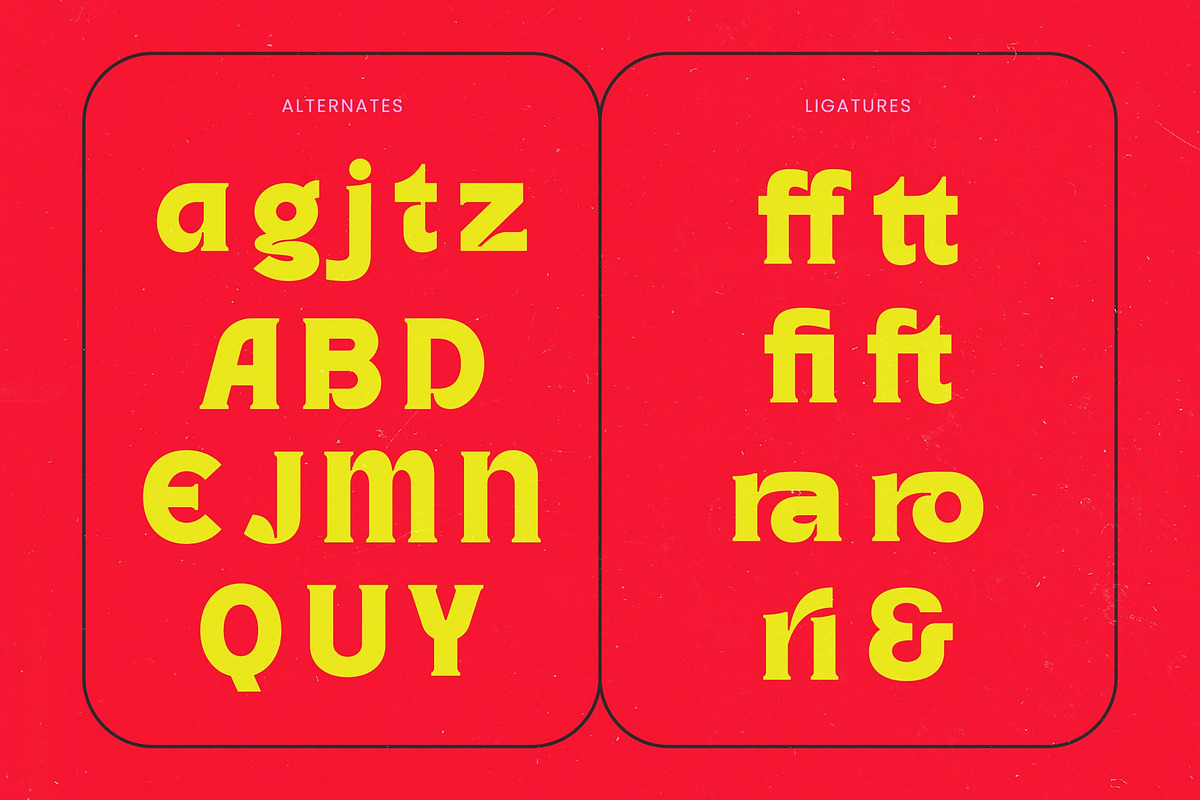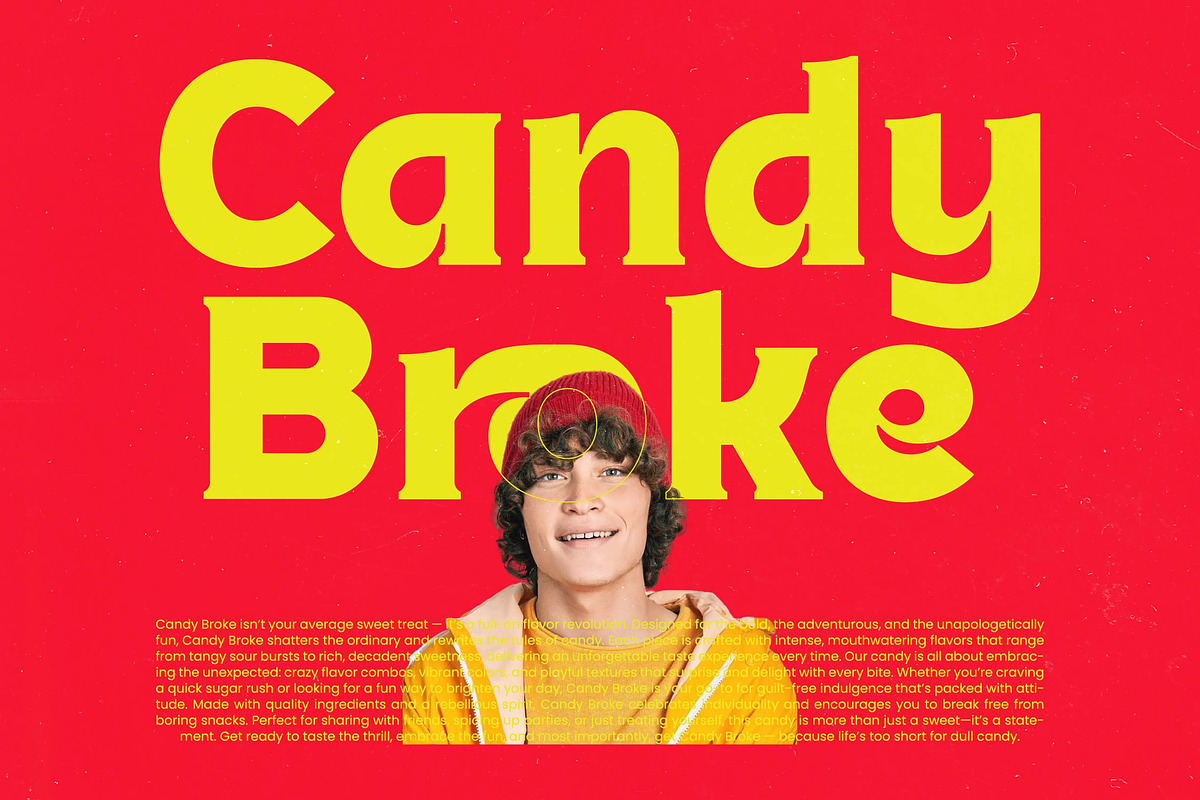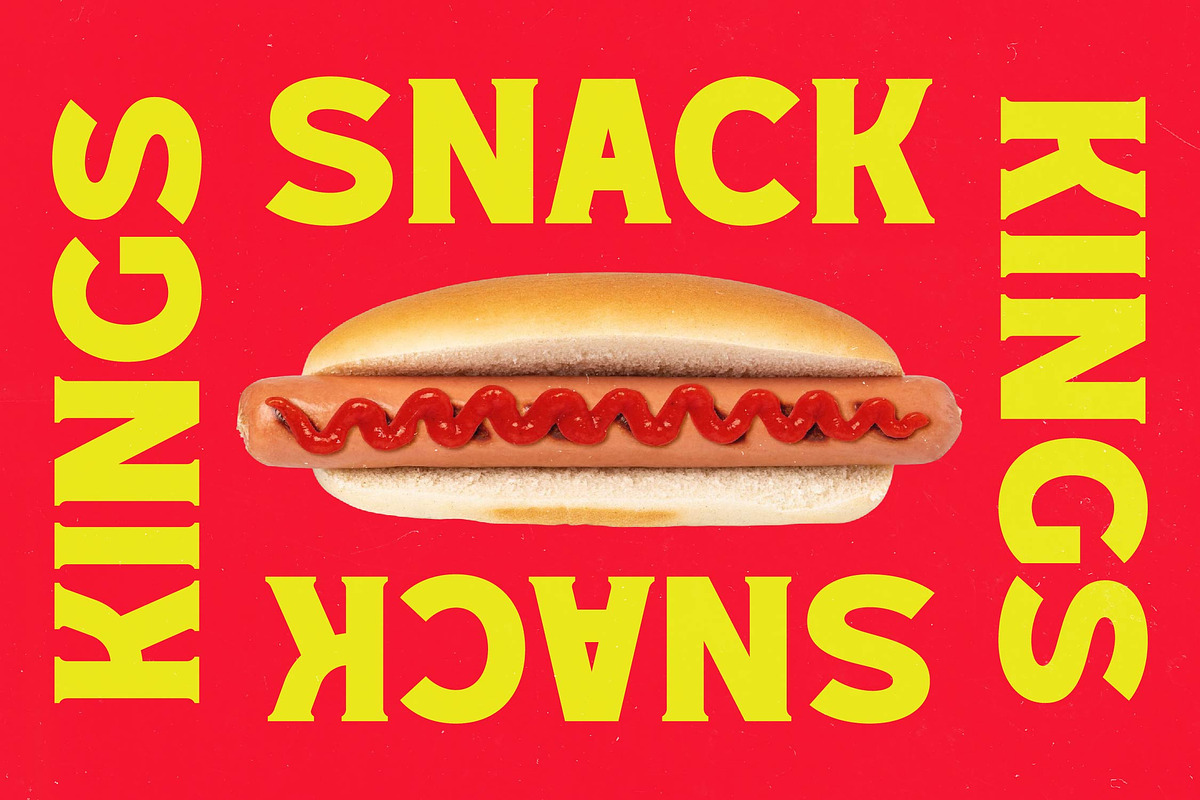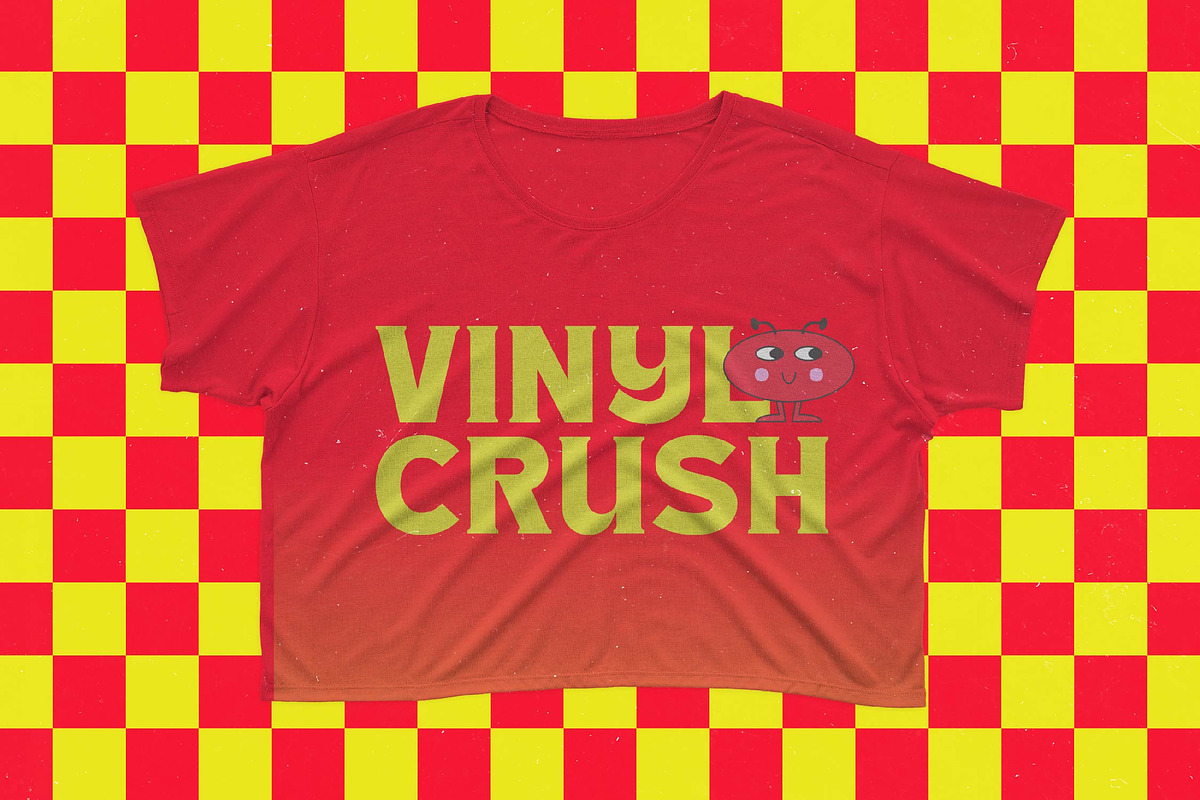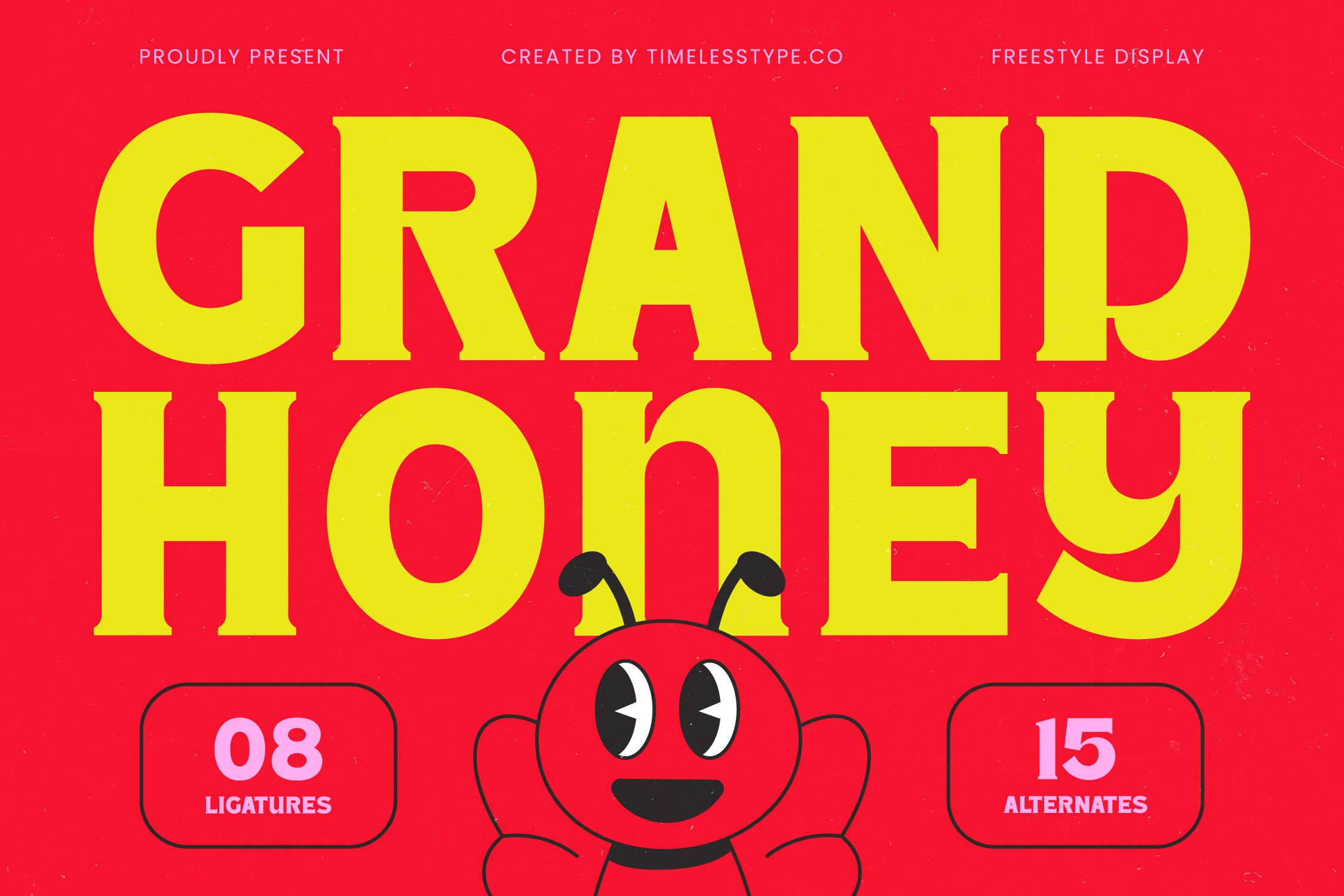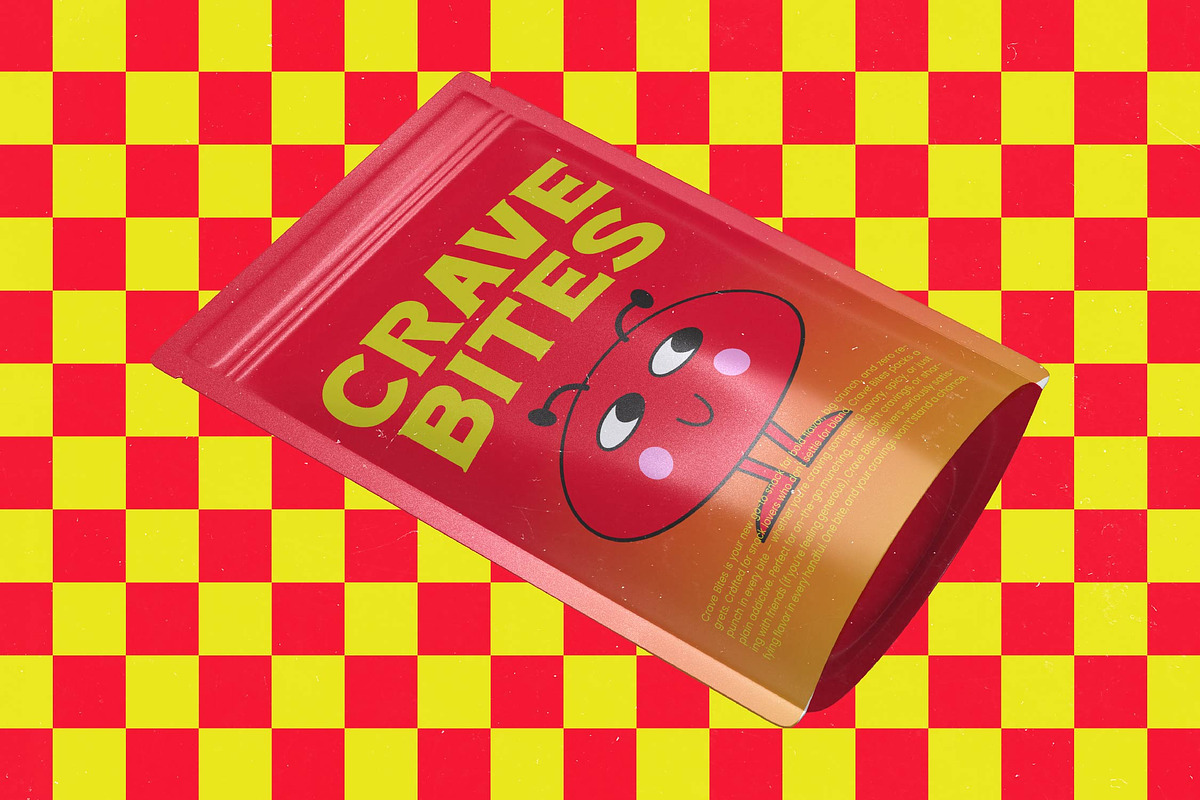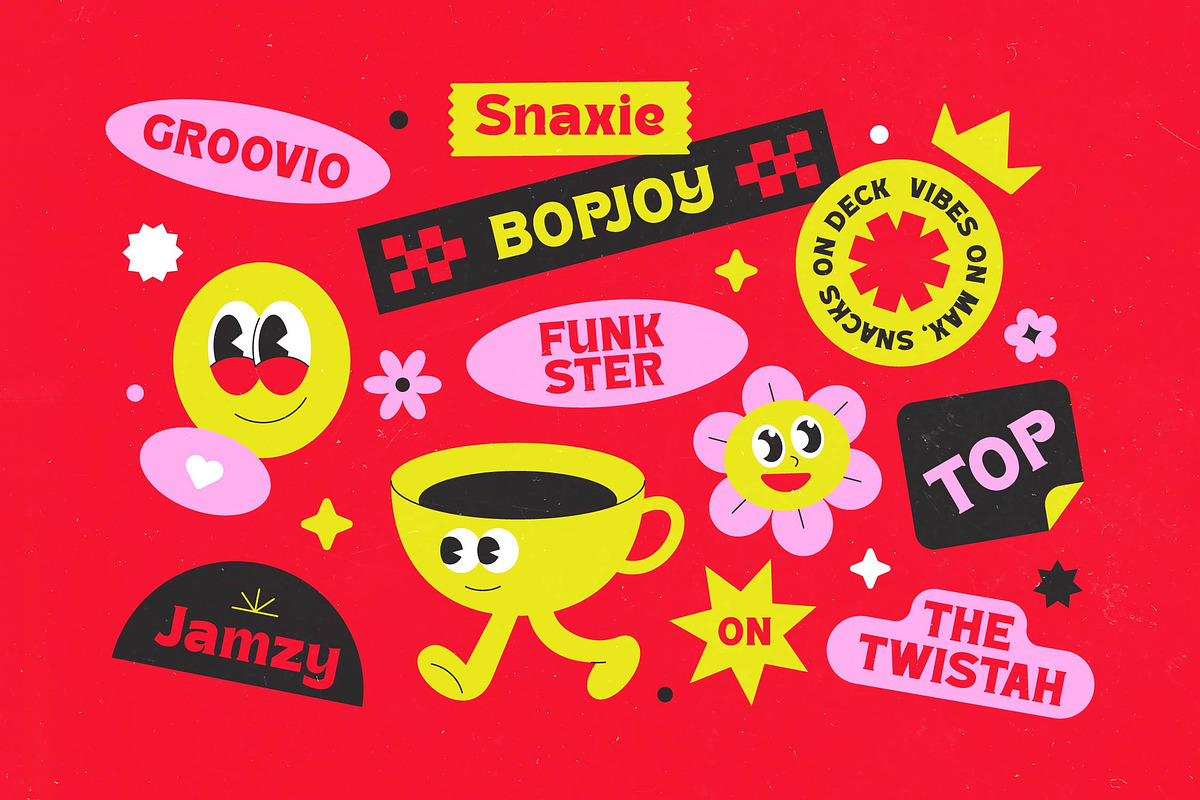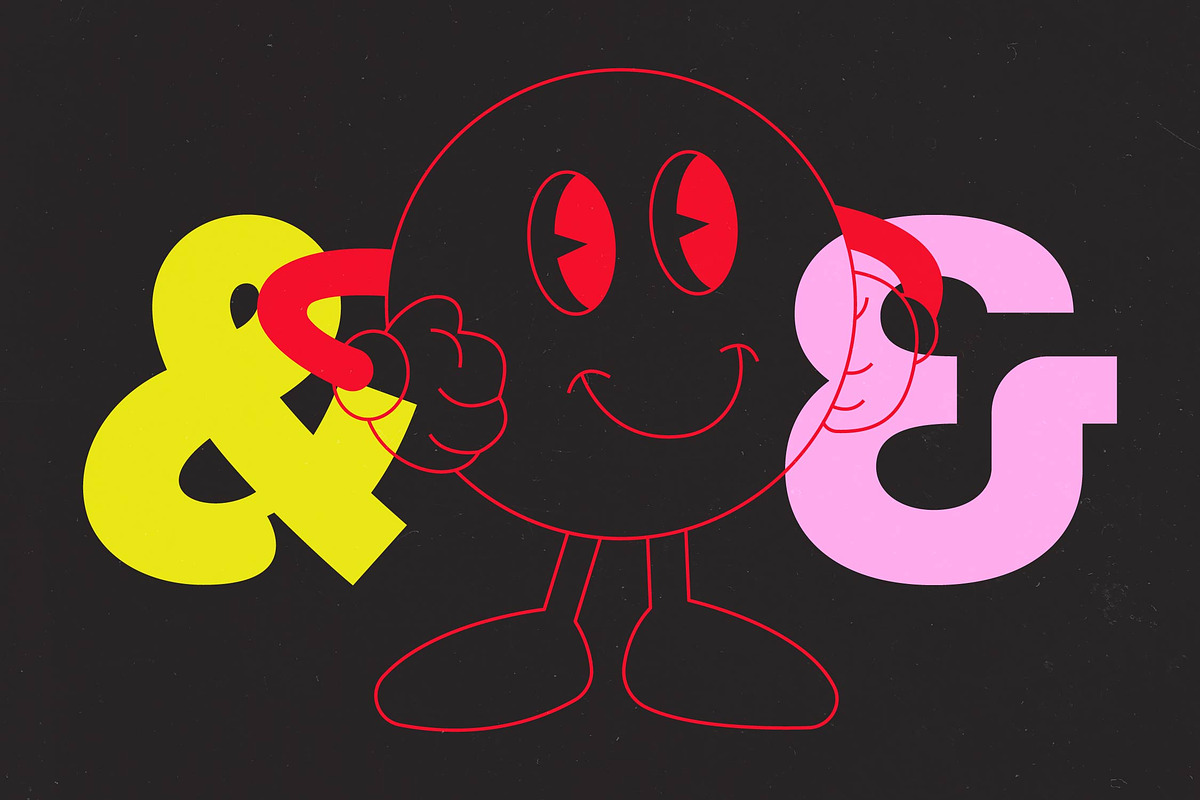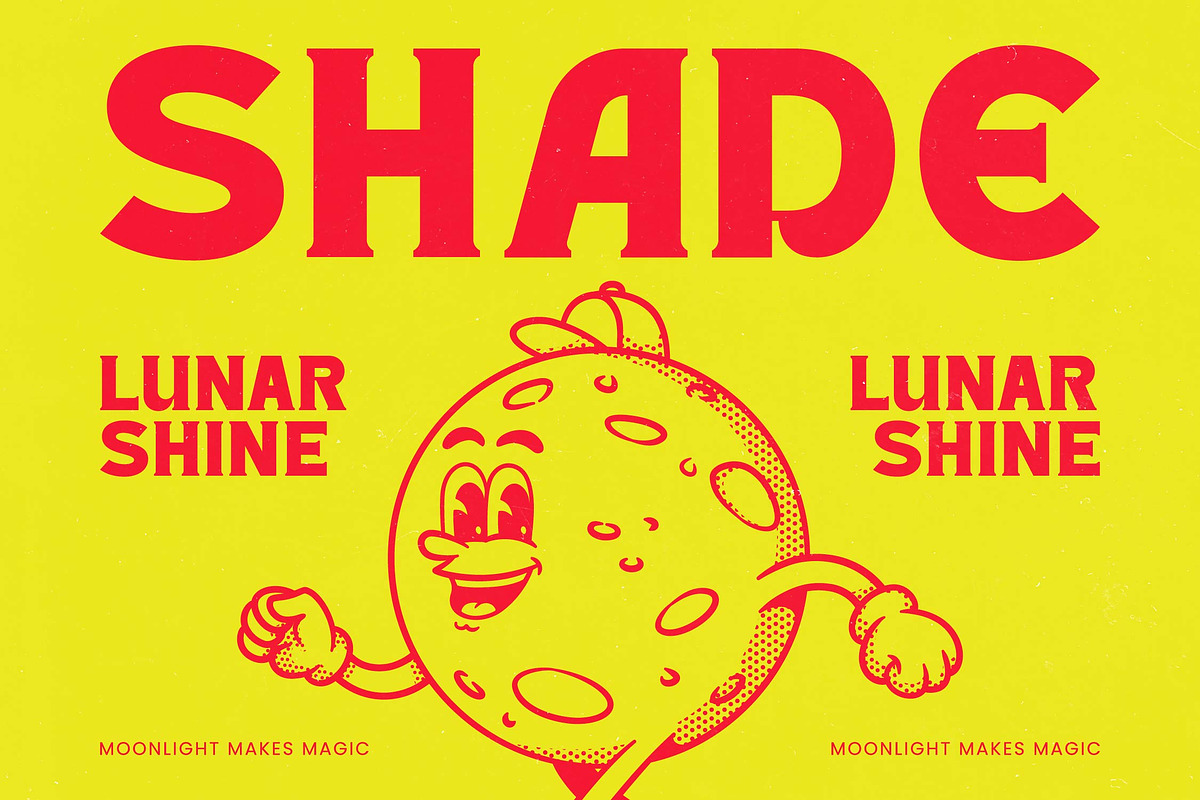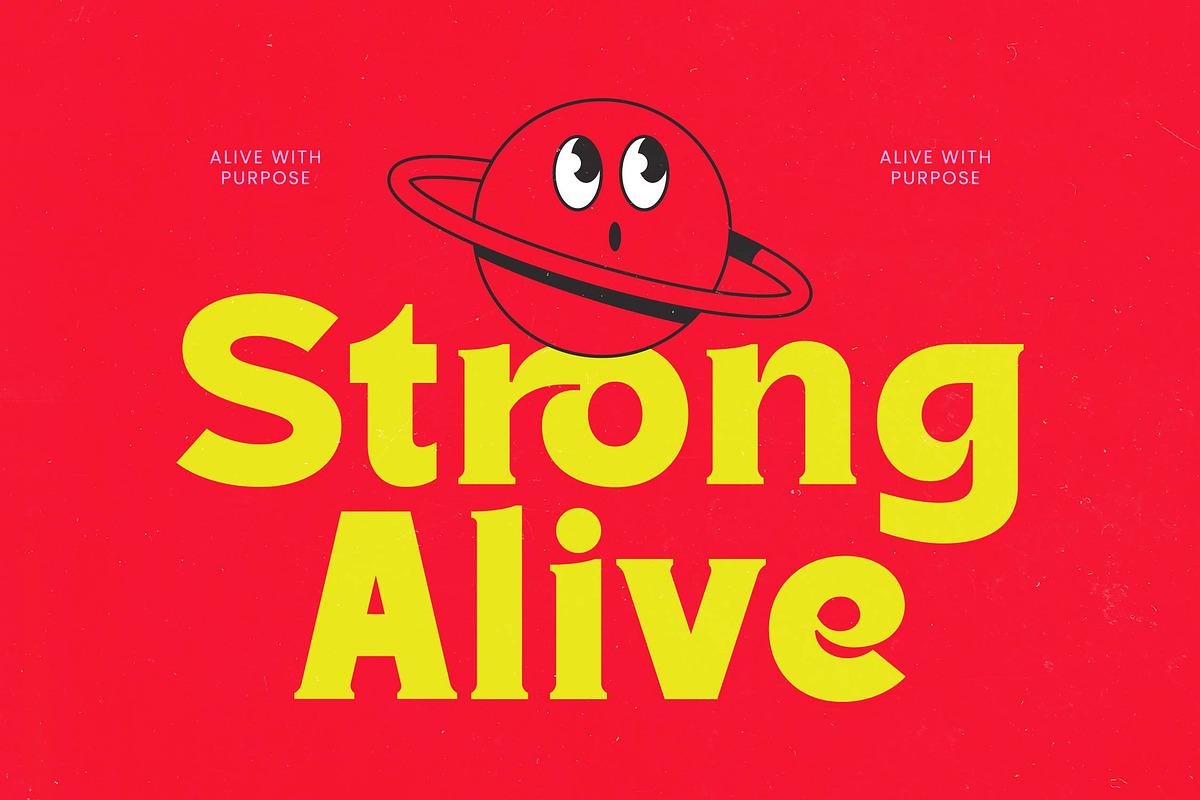
Grand Honey Modern Display Font
Introducing Grand Honey, a bold and vibrant display font designed to make your projects buzz with personality and style. It strikes the perfect balance between classic weight and modern playfulness, ensuring your message stands out in any crowd.
Inspired by the groovy aesthetics of the 70s and 80s, this typeface blends retro nostalgia with a fresh, contemporary twist. It evokes the feeling of vintage signage and classic advertising while maintaining a crisp, clean finish for today's digital landscape.
This modern serif display is crafted for maximum branding impact, offering a high-contrast serif look that demands attention. As a premium editorial font, it brings a sense of luxury typography to your layouts, making it ideal for high-end projects that need a unique voice.
Riding the wave of the modern serif trend, this typeface fits perfectly within current movements for character-driven typography. It serves as a versatile tool among editorial display fonts, providing designers with the expressive power needed for trend-setting visual identities.
Whether you are working on a high-end logo design or a complete branding suite, this font delivers exceptional results for editorial layouts and product packaging. Its sophisticated charm also makes it a brilliant choice for wedding invitations and fashion magazine spreads.
The font is packed with technical versatility, including ligatures and alternates that allow for custom letter combinations. With full multilingual support and a comprehensive set of international characters, it ensures your designs are ready for a global audience.
- Ligature 08 Alternate 15